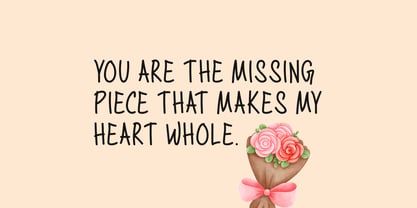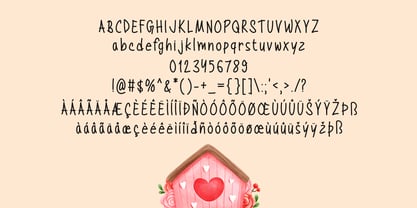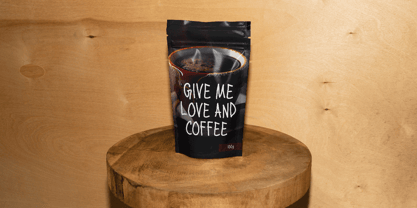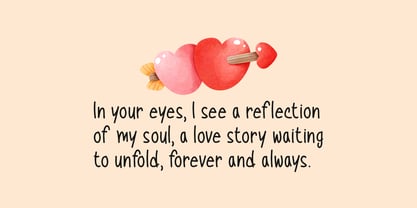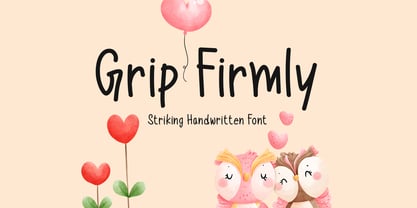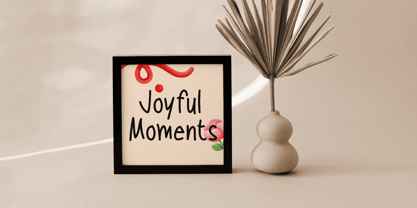
Grip Firmly
The Grip Firmly Font Family was designed by Md Shohail Bhuian and published by Seemly Fonts. Grip Firmly contains 1 styles.
Grip Firmly is an influential, eye-catching handwritten font. It is perfect for logos, stationery, t-shirts, and print designs. It also adds flair to flyers, album covers, posters, photo frames, and website headers. Because of its adaptability, it is ideal for various design projects.